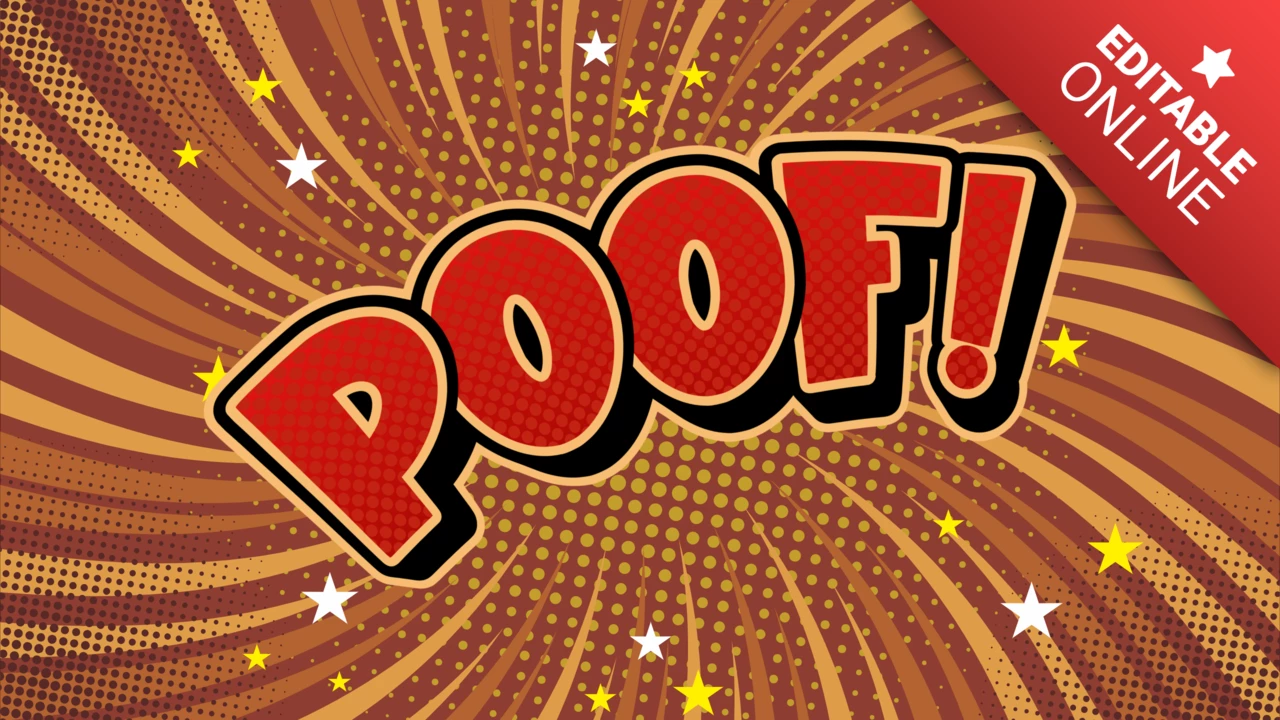
Comic Book Style Font
Elevate your designs with our font style text effect generator! Create eye-catching comic book inspired text effects with our easy-to-use tool featuring red and brown hues.